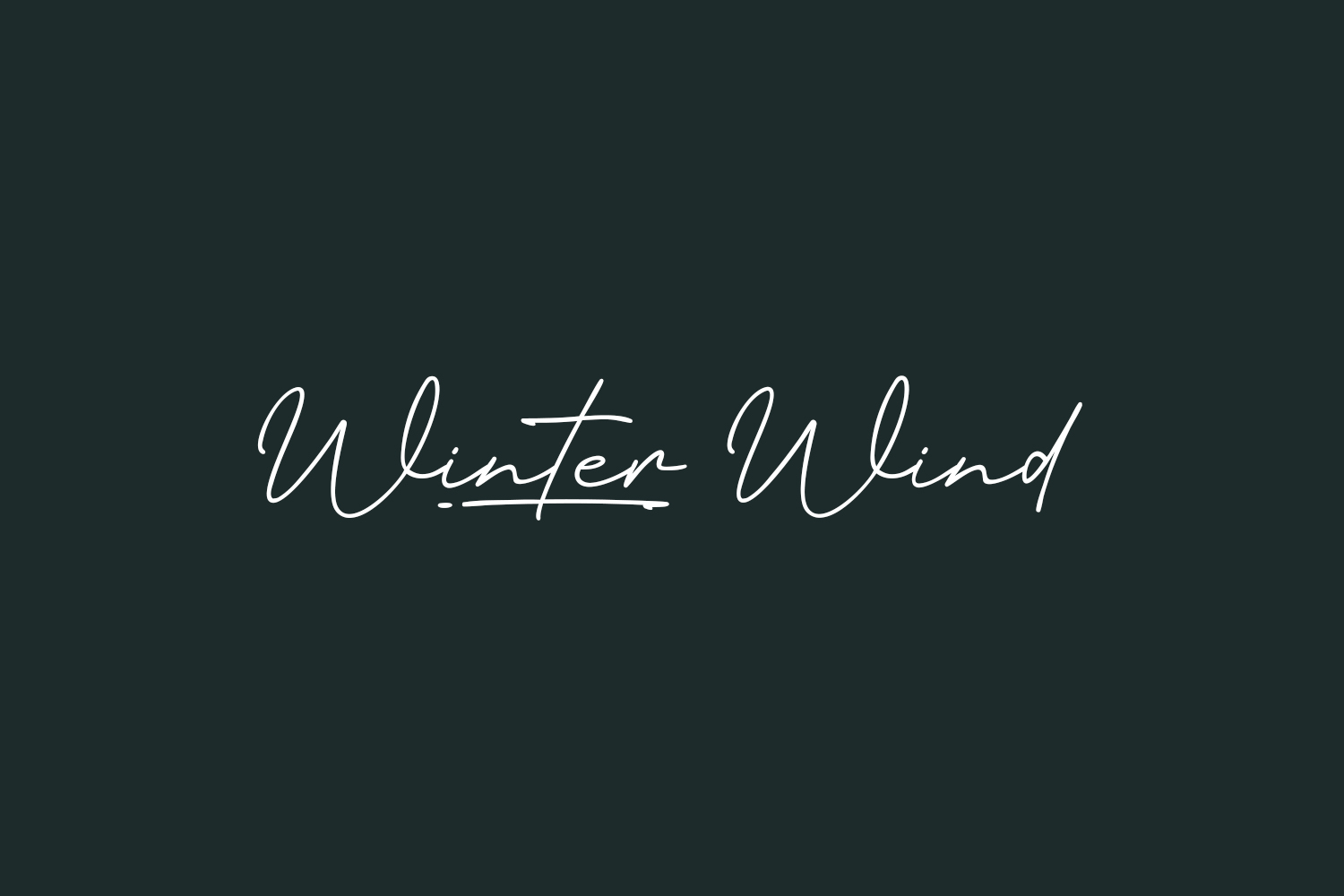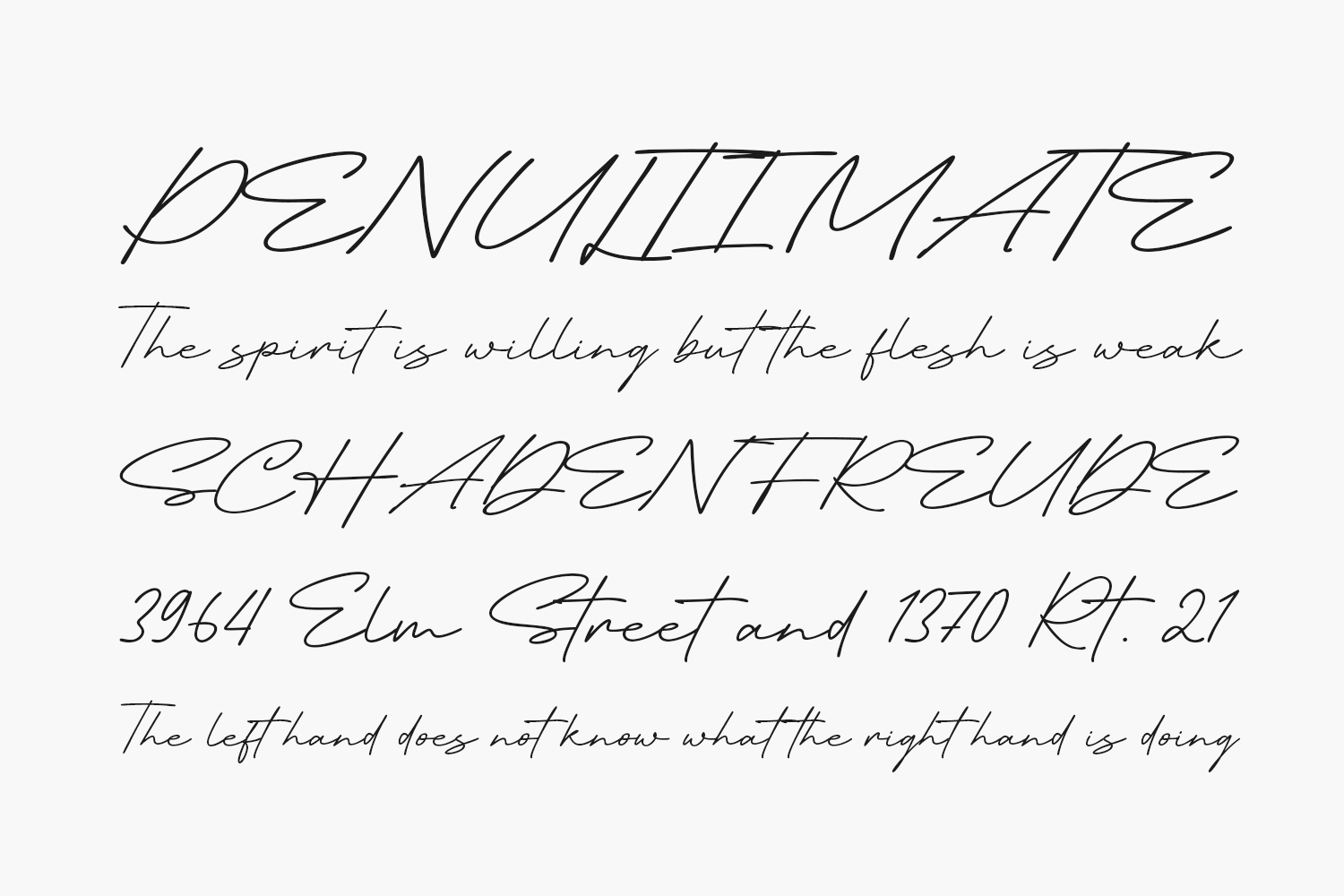
Embrace the essence of Winter Wind Free Font, a pristine, chic, contemporary, and refined script typeface, tailor-made for an array of design projects including posters, logos, magazines, book covers, banners, and beyond. Unlock the potential of this remarkable font to craft enchanting designs that exude grace. Its versatility seamlessly adapts to an extensive spectrum of projects, infusing your creative concepts with an air of distinction that effortlessly sets them apart. Discover the transformative power as you integrate Winter Wind into your imaginative ventures, witnessing how it elevates them to a realm of distinction. Winter Wind Free Font is free for personal use only. Please purchase the full version for commercial use.